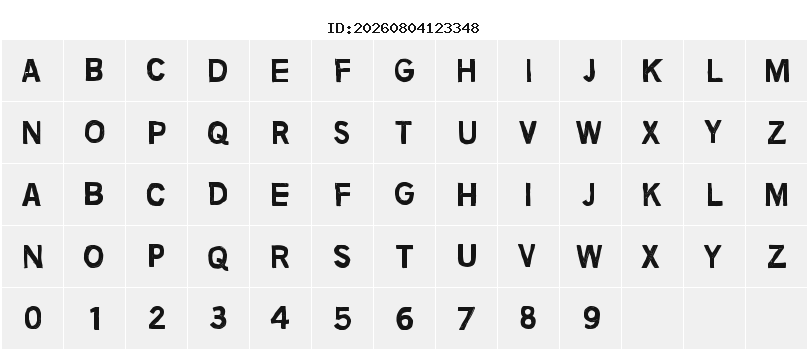
• Font Name: No more lies
• Designer: junkohanhero
No more lies.ttf is a modern, elegant sans-serif font designed for ultimate readability and visual harmony. Perfect for branding, headlines, web design, and print materials.